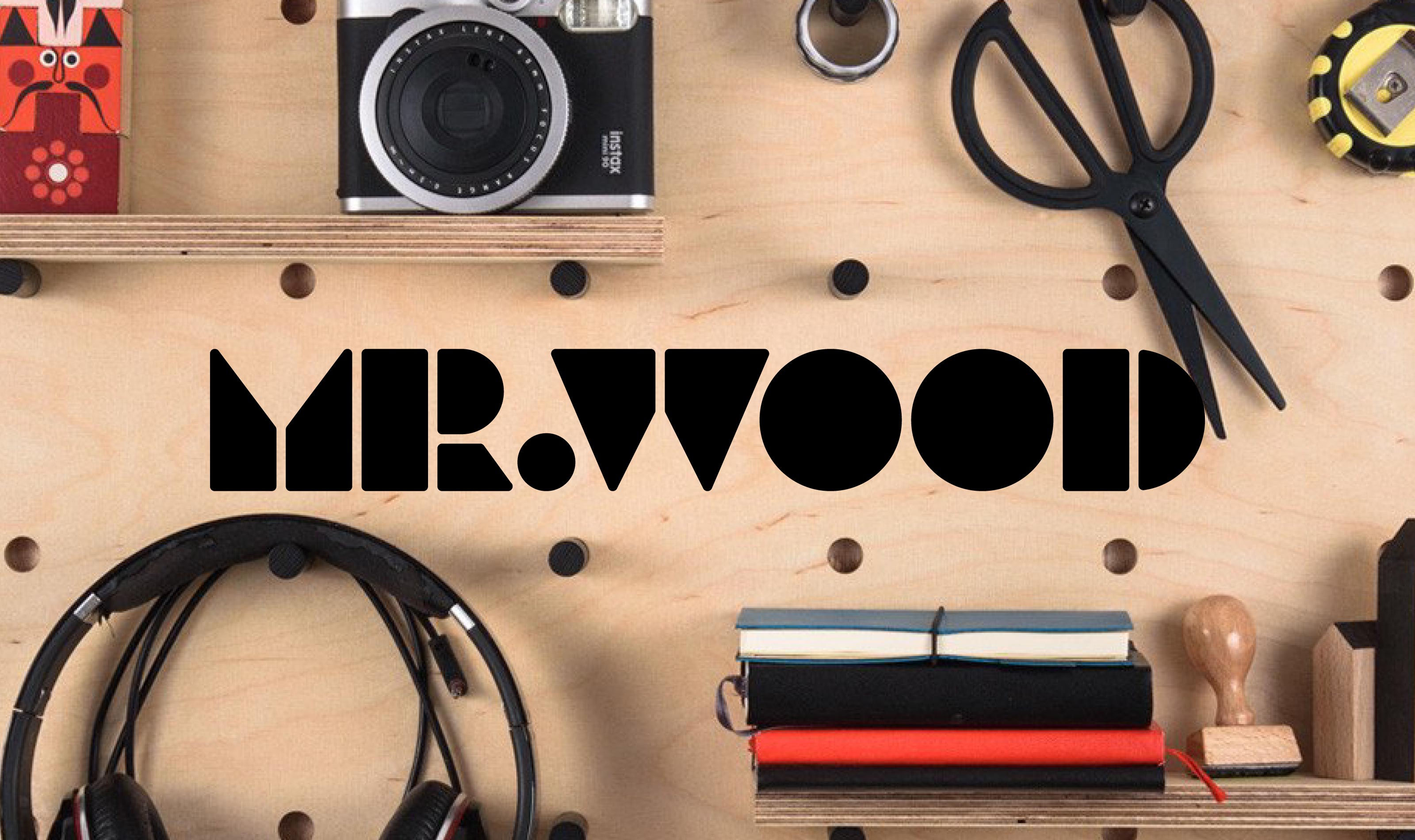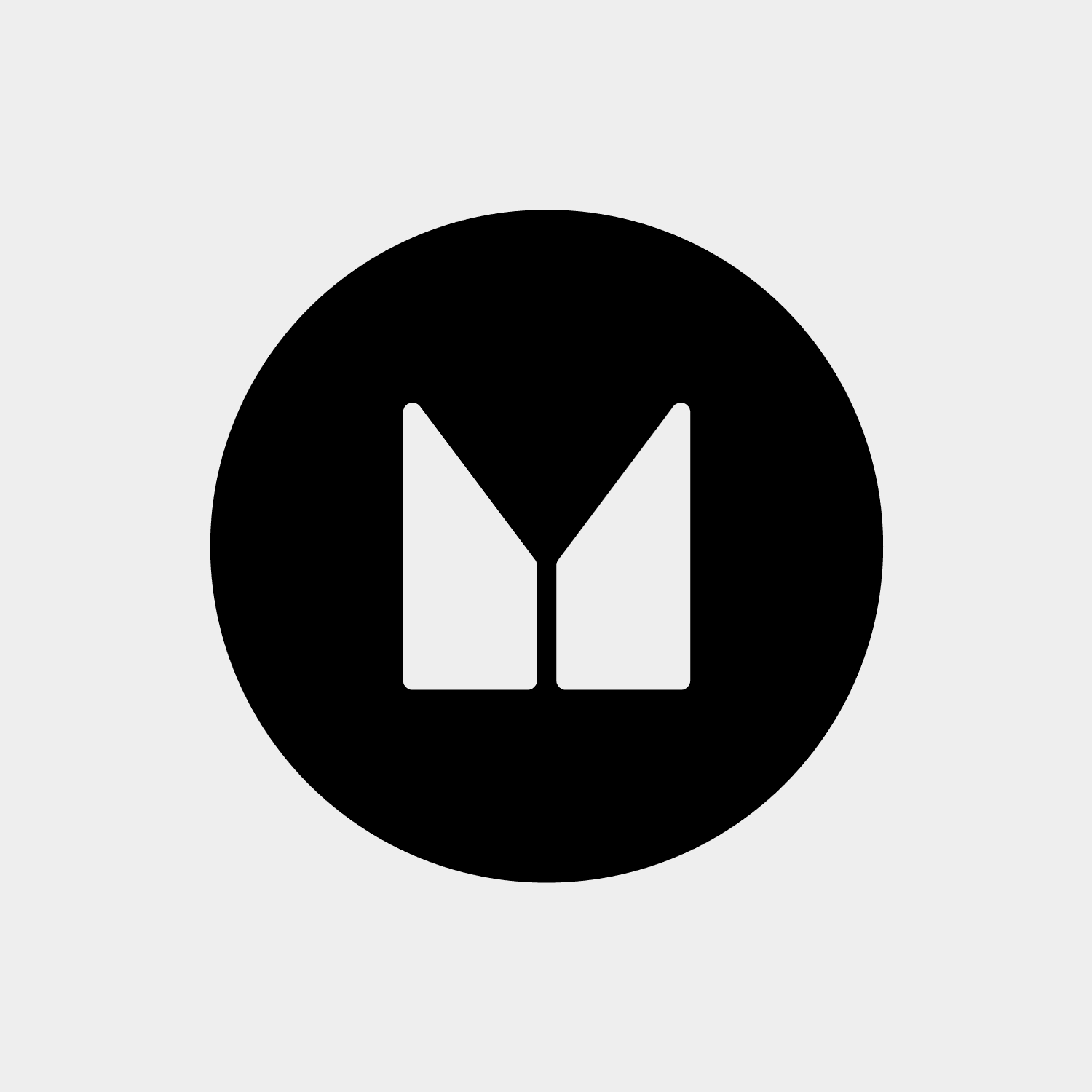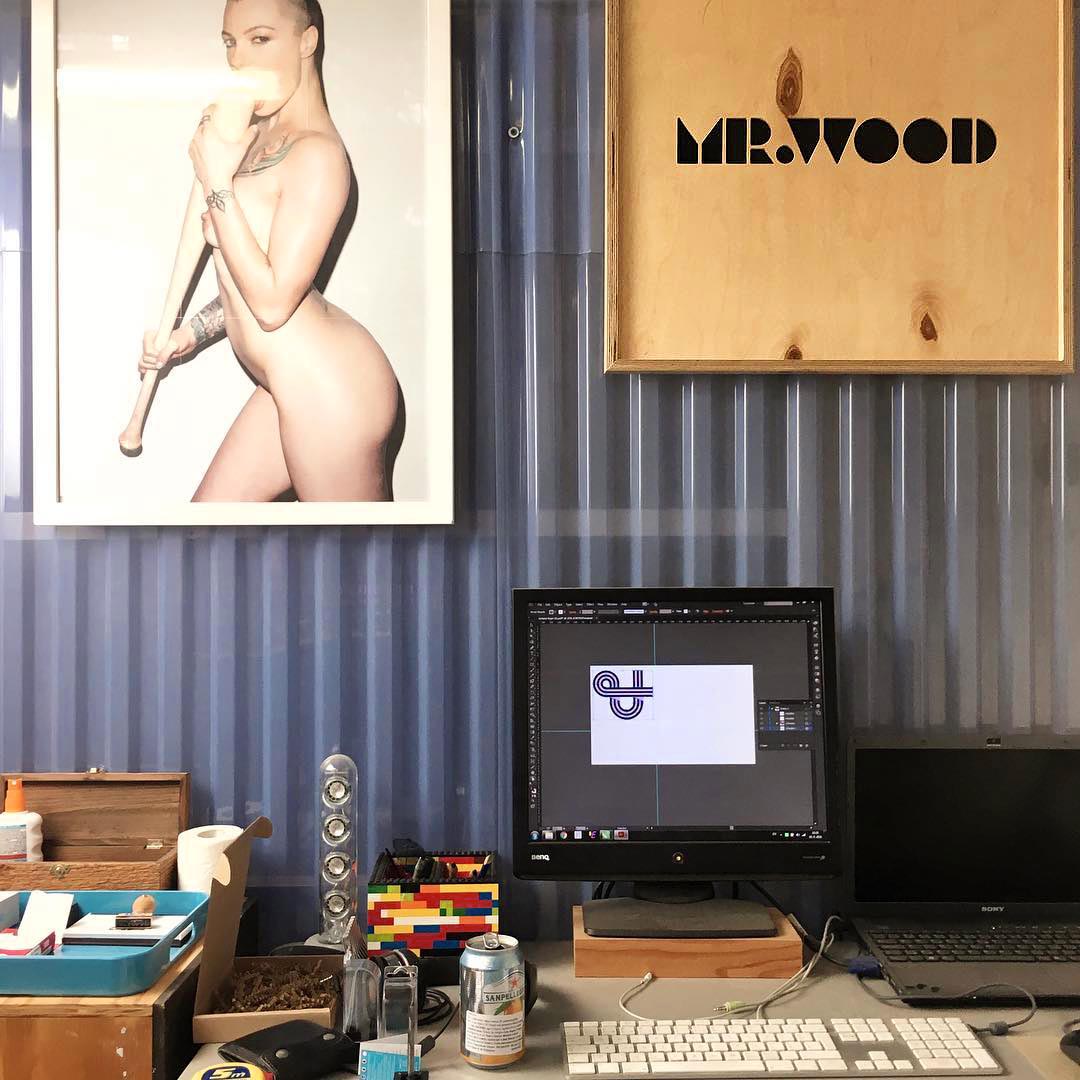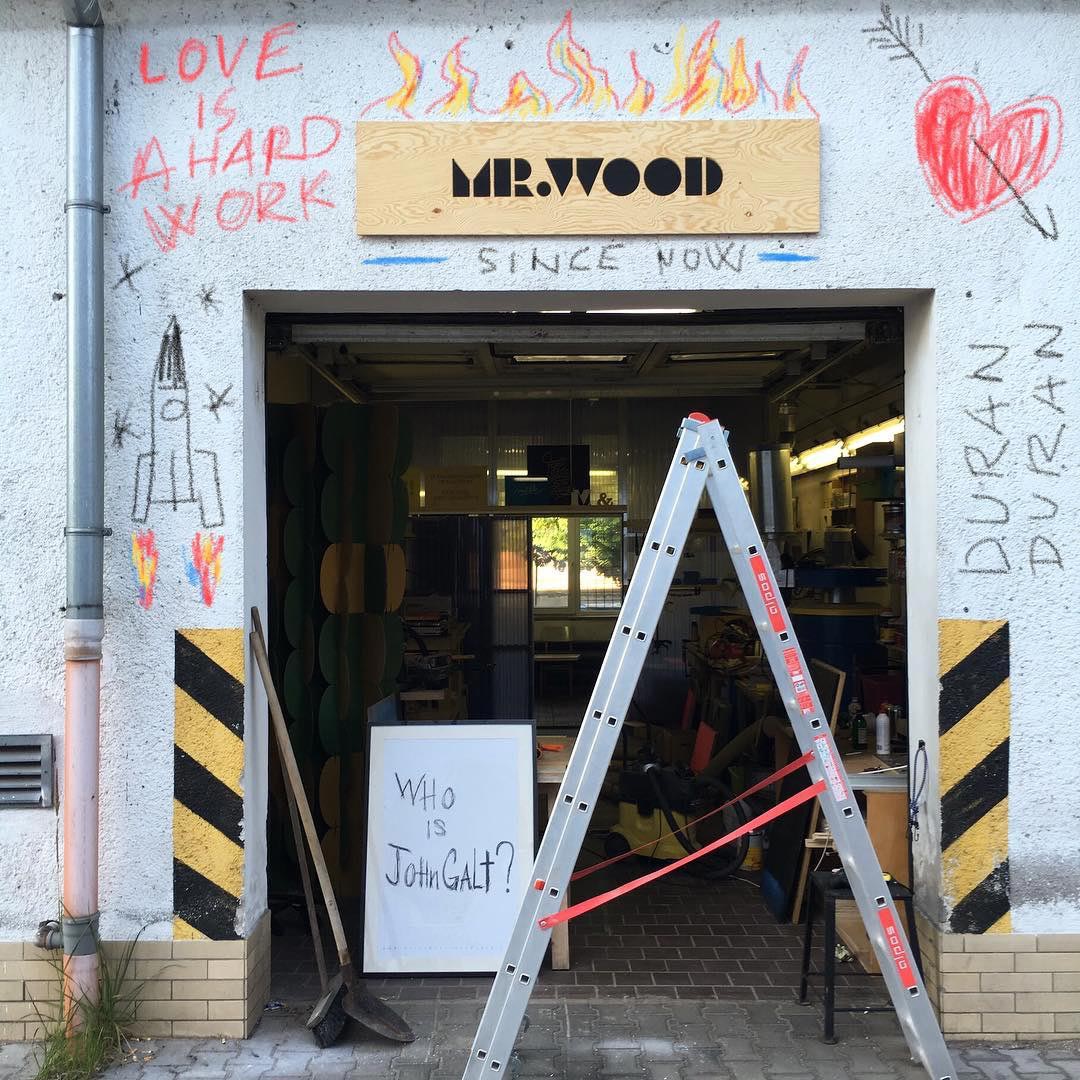
Mr. Wood
Logo for Mr.Wood, a wooden accessories & decorations manufacturer. Its blunt simplicity is easily reproducible in wood. Inspired by children wooden blocks, the rounded letters served as a base for my typeface Woodkit.